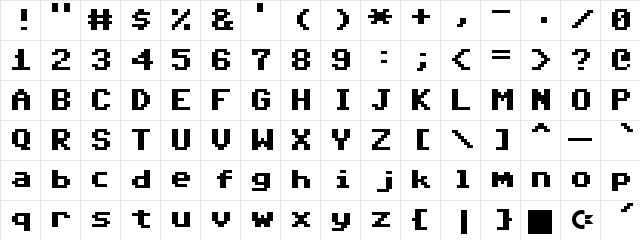
Adore64 Regular
Designer: .:ck!:.
Design Context for Adore64
Adore64 is a composed and adaptable typeface that performs quietly and consistently across a wide range of design contexts.
Pro Tip: Use Adore64 in both headline and body roles to test its range before committing to a single application.